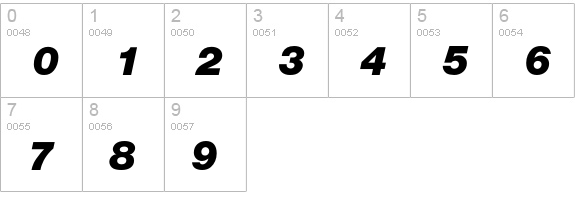
Olnova-HeavyIta Font Details
Olnova-HeavyIta is a striking and bold font that exudes strength and modernity. With its heavy weight and italic styling, this font is perfect for making a bold statement in any design project. Whether you're creating posters, logos, or headlines, Olnova-HeavyIta commands attention and leaves a lasting impression. The best part? Olnova-HeavyIta is available for free download at FontsMarket.com. You can easily access this powerful font and incorporate it into your projects without any cost. Don't miss out on the opportunity to add Olnova-HeavyIta to your font collection and elevate your designs with its impactful presence. Download it today and unleash the boldness of Olnova-HeavyIta in your creative endeavors.